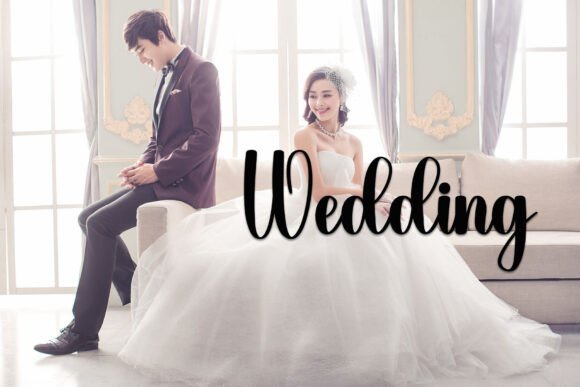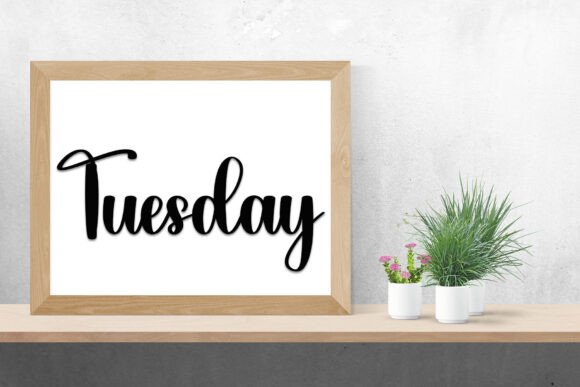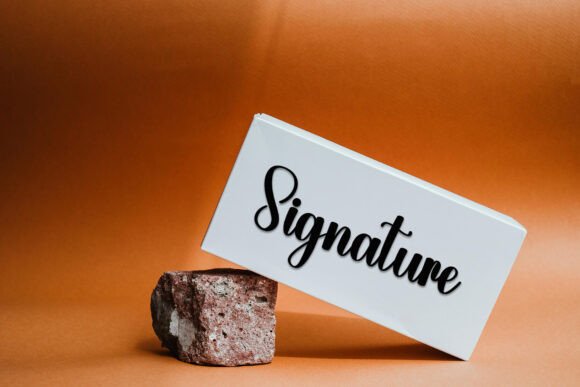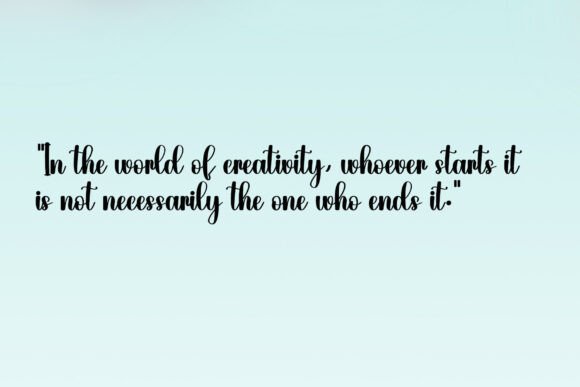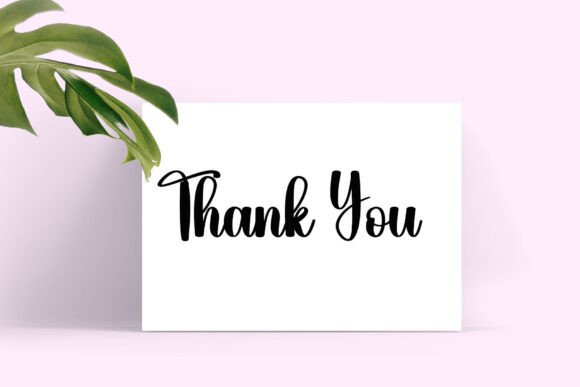
Introducing Beagle Font: Elevate Your Designs with Timeless Elegance
In the world of typography, a font can make or break a design project. For designers and crafters seeking to add a touch of sophistication and class to their work, Beagle Font is an exceptional choice. This trendy handwritten font boasts a contemporary atmosphere and impeccable form, drawing inspiration from timeless classic calligraphy.
The Inspiration Behind Beagle Font
Beagle Font is rooted in the rich tradition of classic calligraphy, yet it has been carefully crafted to meet the demands of modern design. The font’s creators aimed to capture the essence of elegant handwriting, infusing it with a fresh and contemporary vibe. The result is a font that exudes refinement and poise, perfect for projects that require a high level of sophistication.
Key Features of Beagle Font
- Trendy and Handwritten: Beagle Font features a beautiful, handwritten style that adds a personal touch to any design project.
- Contemporary Atmosphere: Despite its classic inspiration, Beagle Font has a distinctly modern feel, making it suitable for a wide range of design applications.
- Impeccable Form: The font’s precise and elegant letterforms ensure that it remains highly legible, even at smaller sizes.
- Elegance and Class: Beagle Font is designed to bring a sense of luxury and refinement to your designs, making it perfect for high-end branding, packaging, and editorial projects.
Use Cases for Beagle Font
Beagle Font’s versatility makes it an excellent choice for various design projects, including:
- Branding and Logo Design: Create a lasting impression with a custom logo that showcases the elegance of Beagle Font.
- Packaging Design: Add a touch of sophistication to product packaging and make your brand stand out on store shelves.
- Editorial Design: Use Beagle Font to add a level of refinement to magazines, newspapers, and online publications.
- Wedding and Event Design: Create beautiful wedding invitations, programs, and other event materials with Beagle Font’s elegant style.
Tips for Using Beagle Font Effectively
To get the most out of Beagle Font, consider the following tips:
- Pair with Contrasting Fonts: Combine Beagle Font with a clean, sans-serif font to create visual interest and hierarchy.
- Experiment with Colors: Beagle Font looks stunning in a range of colors, from rich blacks and dark grays to metallic golds and soft pastels.
- Pay Attention to Kerning: Adjust the kerning to ensure that the font’s elegant letterforms are properly spaced and visually appealing.
Beagle Font is a stunning addition to any designer’s toolkit, offering a unique blend of classic elegance and modern sophistication. With its impeccable form, trendy handwritten style, and versatility, this font is sure to elevate your design projects and leave a lasting impression on your audience.
Whether you’re a seasoned designer or a crafty DIY enthusiast, Beagle Font is an excellent choice for anyone seeking to add a touch of refinement and class to their work. So why not give it a try and experience the transformative power of Beagle Font for yourself?